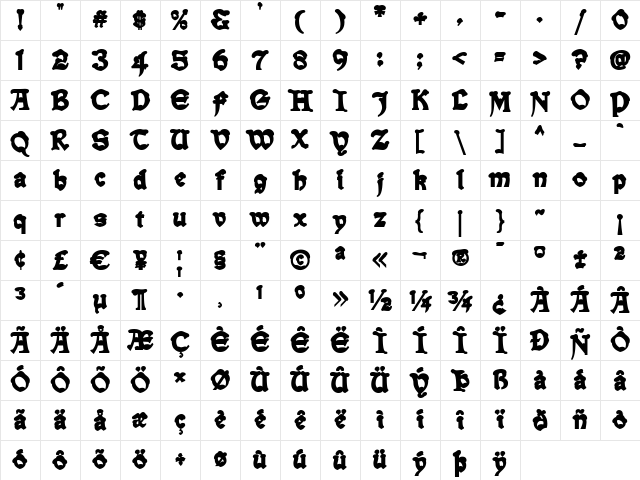
Complete Snowgoose Back Regular glyph index. Displaying only characters natively supported by Snowgoose Back Regular font.
Snowgoose Back is a composed and adaptable typeface that performs quietly and consistently across a wide range of design contexts.
Pro Tip: Use Snowgoose Back in both headline and body roles to test its range before committing to a single application.